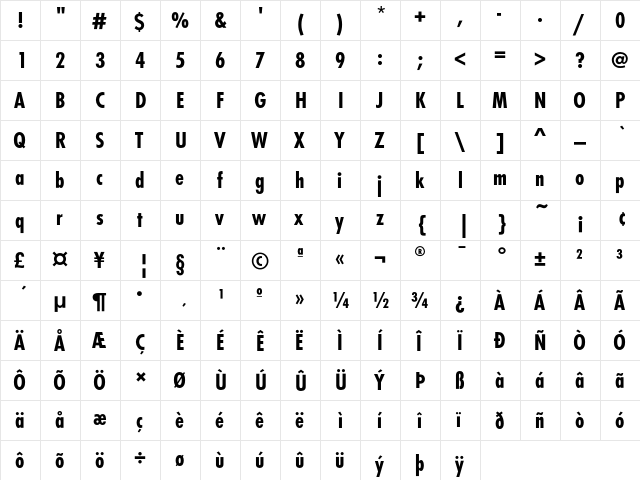
FuturaEF BoldCond Font Preview
Design Context for FuturaEF Typeface
FuturaEF has a distinctly futuristic character, with geometric precision and clean angles that feel at home in technology, gaming, and sci-fi contexts. The heavy weight commands attention and anchors typographic hierarchies. Its narrow stance lets it pack a punch even in space-constrained designs.
Pro Tip: Try FuturaEF with generous letter-spacing in UI labels and navigation — the geometric forms benefit from room to breathe.